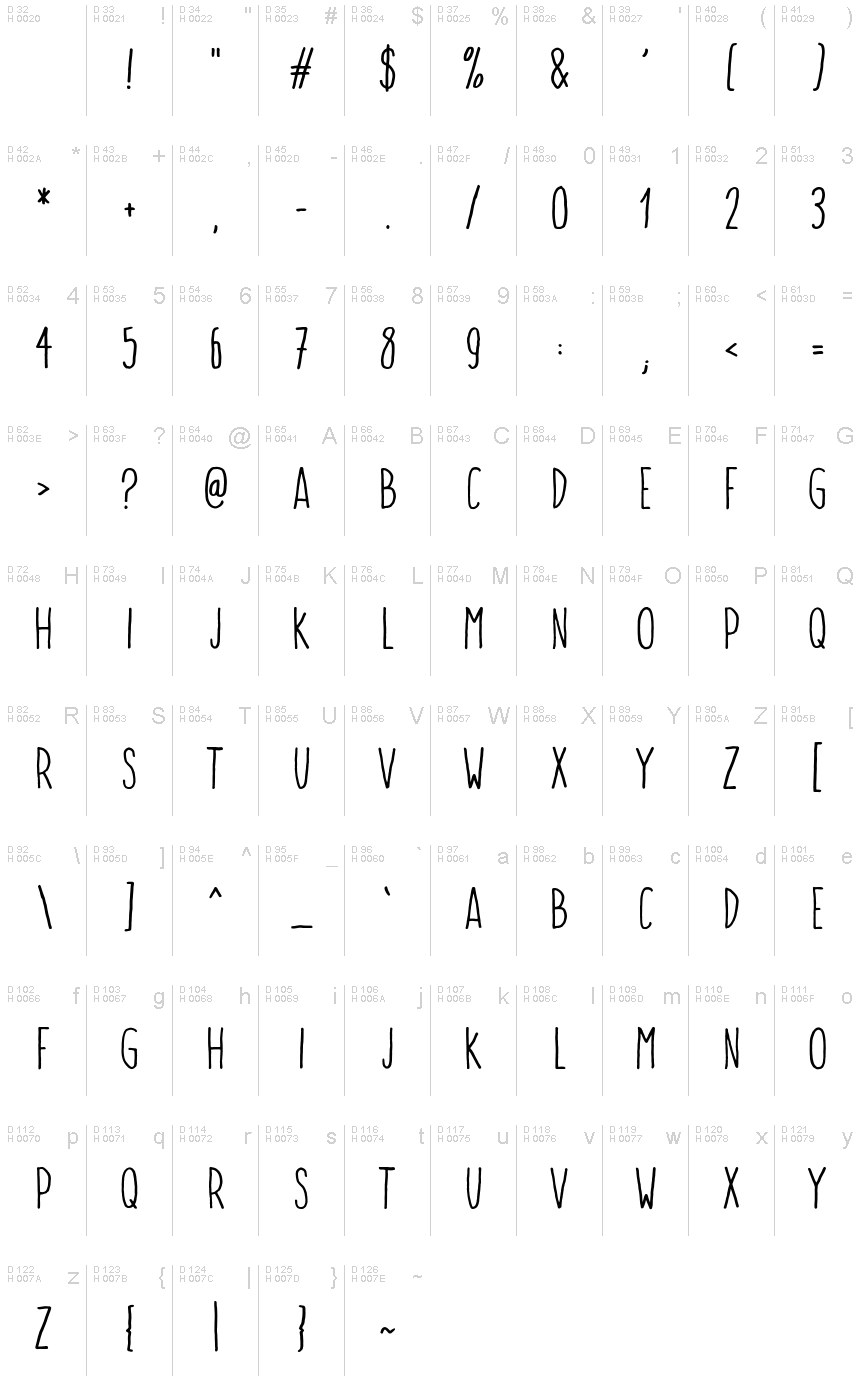
HyperYooWesh
Hyper Yoo Wesh, designed by Bisou, captivates with its distinctive handwritten style and condensed form. This font exudes a playful yet refined charm, offering an engaging visual appeal that stands out in any setting. The quirky, hand-drawn letters add a touch of personal flair and creativity to your text.
Ideal for creative projects such as invitations, posters, and branding materials, Hyper Yoo Wesh brings warmth and originality to your designs. Its unique aesthetic makes it perfect for conveying both casual elegance and artistic innovation. Whether used in headers or short text sections, this font effortlessly commands attention while retaining legibility and charm.